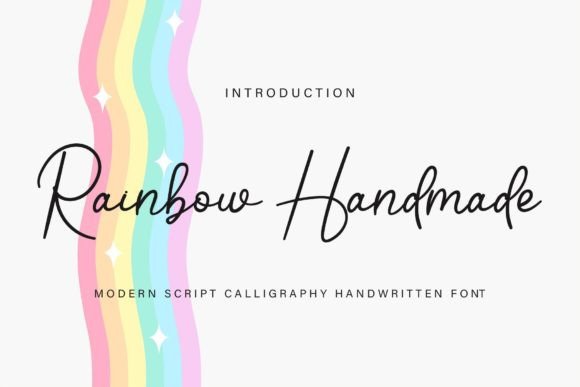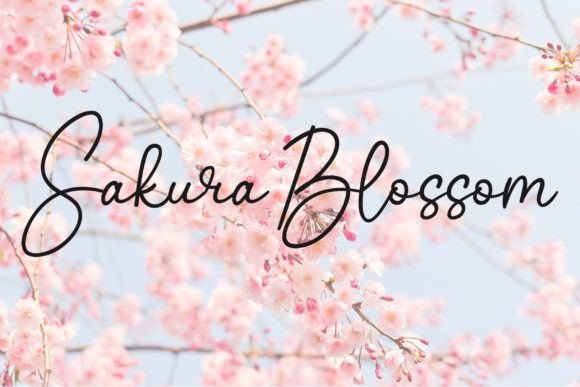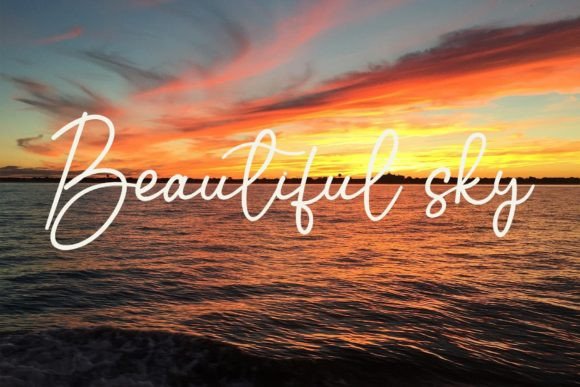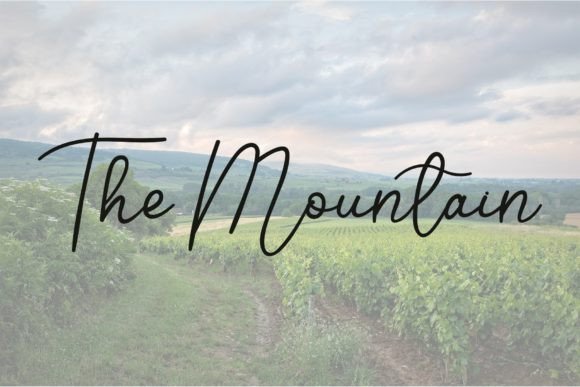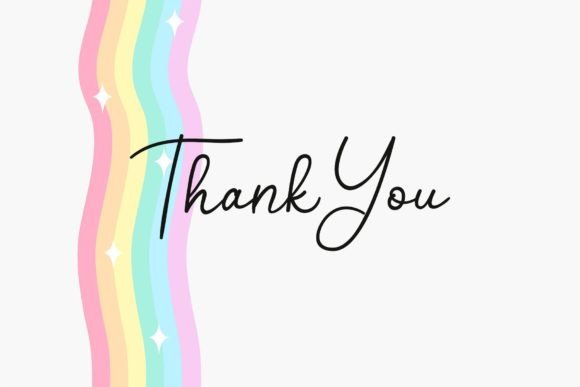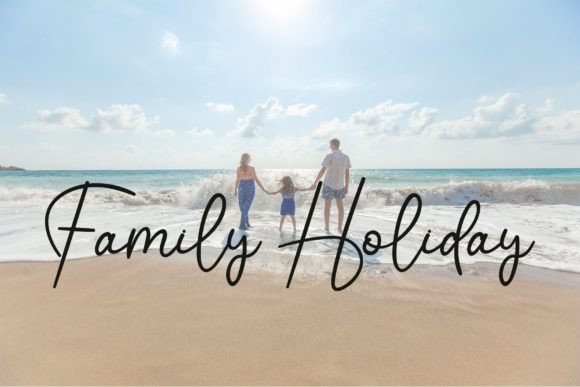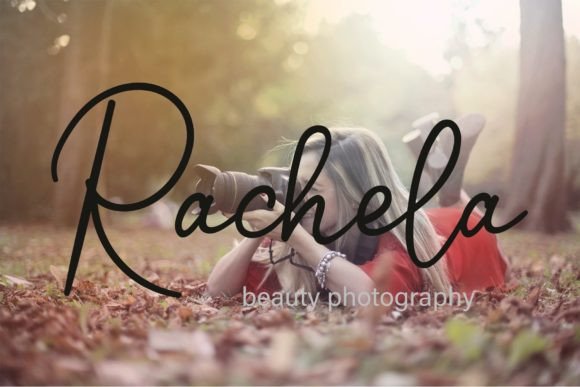
Rainbow Handmade Font
About Rainbow Handmade Font
“Rainbow Handmade” is a delightful and enchanting calligraphy script font that captures the essence of romance and sweetness. With its flowing, handwritten style and elegant strokes, this font brings a sense of grace and charm to any creative project.
The characters in “Rainbow Handmade” appear to dance along the baseline, creating a playful and whimsical feel. This font exudes a romantic aura, making it perfect for a wide range of applications, including wedding invitations, love letters, greeting cards, branding materials, and more. Its versatility allows it to enhance the beauty of various design projects, adding a luxurious spark to each creation.
The natural, handwritten look of “Rainbow Handmade” gives it a warm and inviting feel, making it ideal for expressing heartfelt sentiments and adding a touch of elegance to any visual composition. Its fluid strokes and graceful curves make it a popular choice for designers seeking a font that exudes both sophistication and sweetness.
Embrace the romantic allure of “Rainbow Handmade” and let it infuse your creative projects with love and tenderness. Whether you’re designing wedding stationery, social media graphics, or any other romantic-themed content, this font will bring a luxurious spark and a touch of magic to your creations, leaving a lasting impression on your audience.